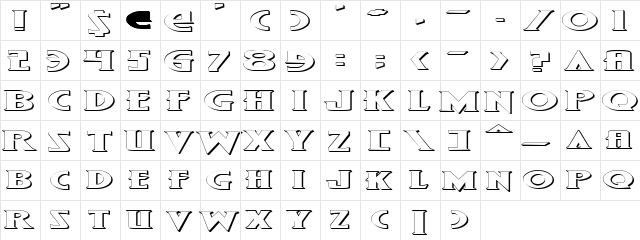
Wolf's Bane Expanded Outline ExpandedOutline
Design Context for Wolf's Bane Expanded Outline Typeface
Wolf's Bane Expanded Outline is built around its visual character rather than neutral utility — its distinctive forms are designed to make an impression at display sizes.